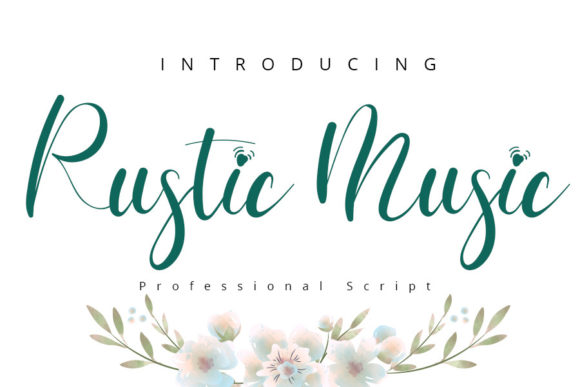
Behold, Rustic Music Font, the captivating script font that dances with elegance across your digital canvas. Let its intricate details and masterful craftsmanship sweep you away into a world of creative possibility. This font is a visual symphony, a harmonious blend of classic charm and modern flair. Its carefully crafted curves and flourishes evoke a sense of timeless beauty, while its contemporary undertones add a touch of edgy sophistication.
Immerse yourself in the boundless versatility of Rustic Music Font. Its fluid lines and expressive characters make it an ideal choice for a wide range of design projects. Craft breathtaking logos that exude personality and charm. Create eye-catching social media graphics that demand attention. Infuse your invitations and greeting cards with a touch of rustic elegance. The possibilities are endless, allowing you to unleash your creativity and make a lasting impression with every design.
With Rustic Music Font as your creative companion, you'll embark on a journey of self-expression and artistic exploration. Its distinctive style has the power to transform ordinary words into works of art. Whether you're designing for a personal project or a high-profile client, this font will elevate your vision and leave an indelible mark on your audience.